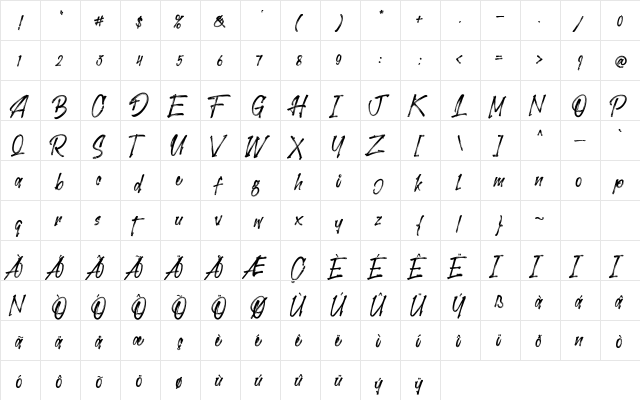
Cellotype Regular
Design Context for Cellotype Typeface
Cellotype is a composed and adaptable typeface that performs quietly and consistently across a wide range of design contexts.